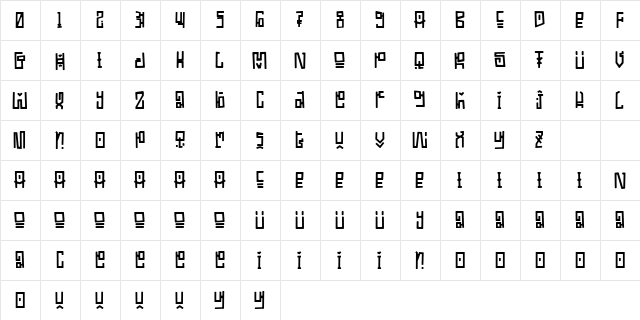
ETHNIQUE Regular
| Foundry | TOKOKOO STUDIO |
| Designer | Sahirul |
Design Context for ETHNIQUE Typeface
ETHNIQUE is a composed and adaptable typeface that performs quietly and consistently across a wide range of design contexts.